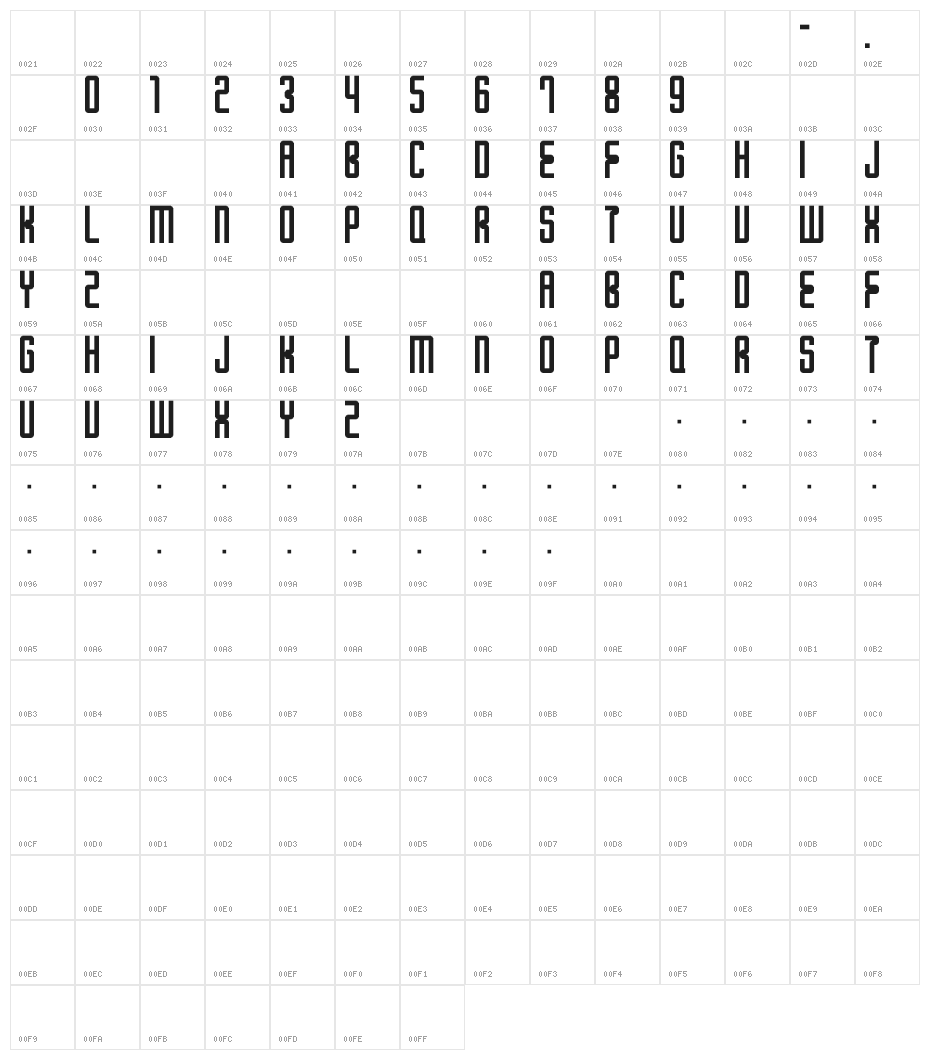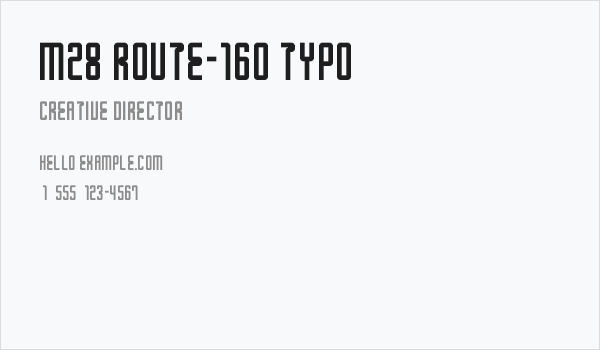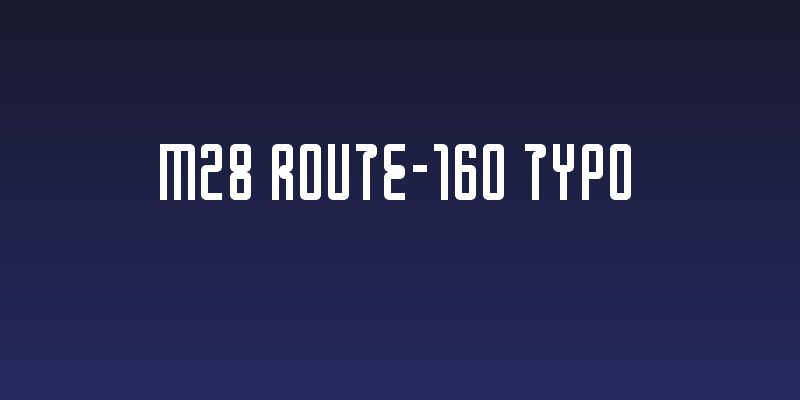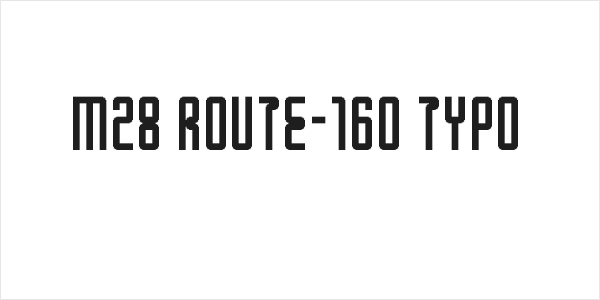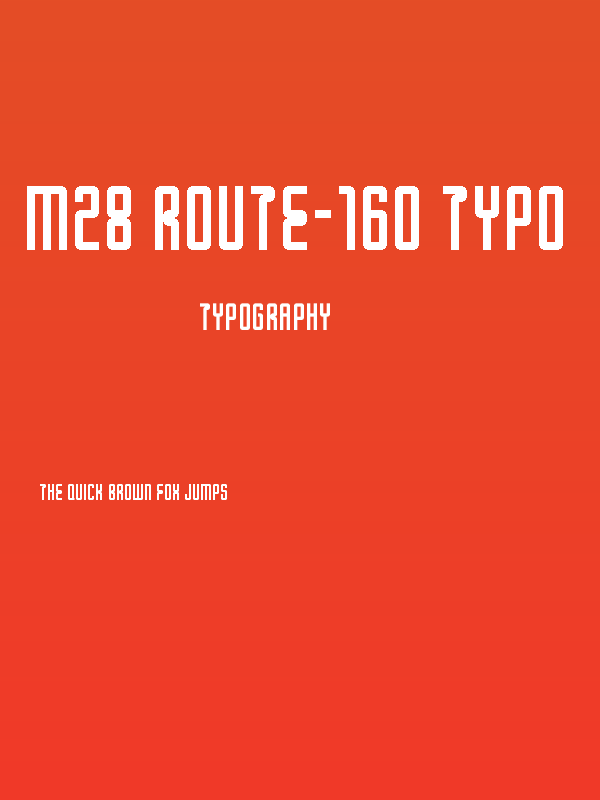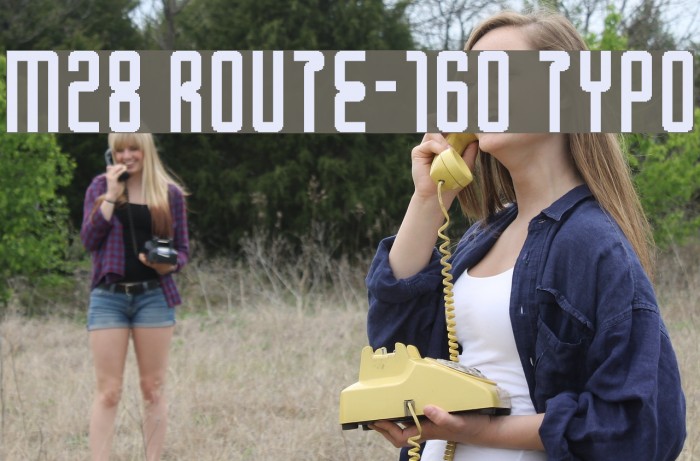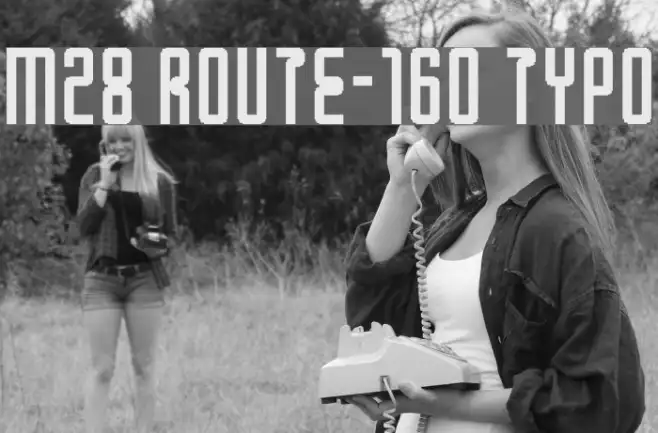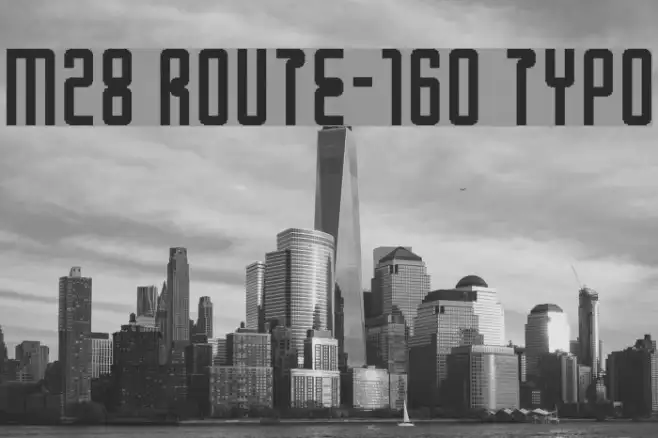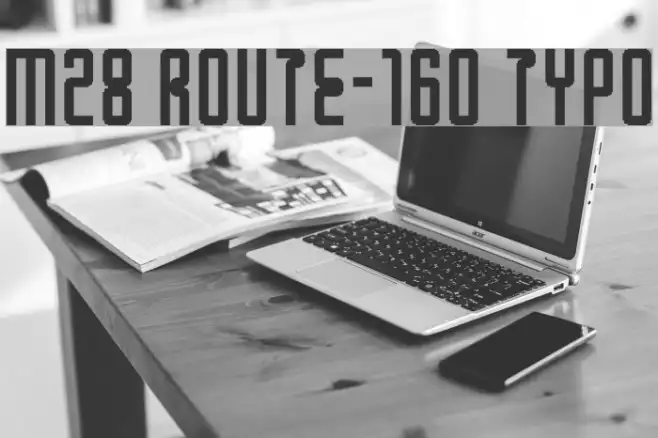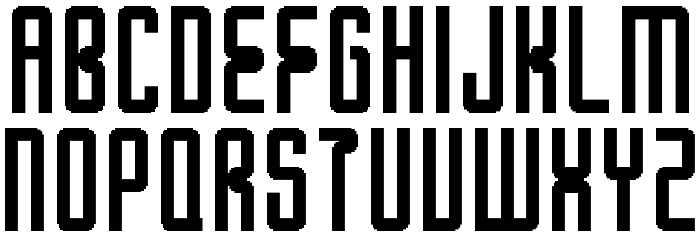
M28_ROUTE-160 TYPO Font
| Anwendungsfall | Headlines, Logos, Signage |
| Vorgeschlagene Projekte | Ideal for use in digital displays, signage, branding for tech companies, or any project requiring a modern, industrial aesthetic. |